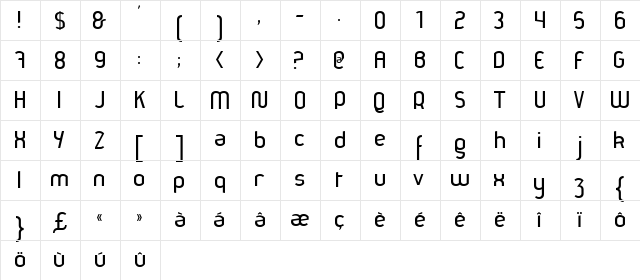
Thamara Regular
| Designer | BenoԴ Sjoholm |
Design Context for Thamara Typeface
Thamara takes a measured approach to typography — its balanced proportions and neutral character make it a reliable workhorse for both digital and print work.